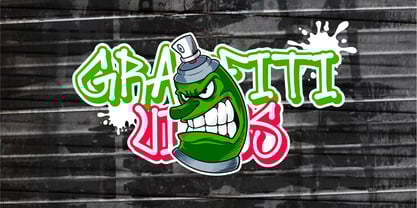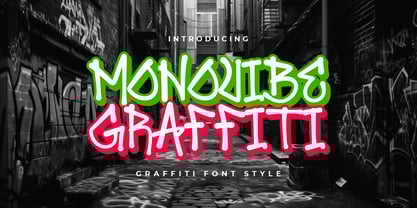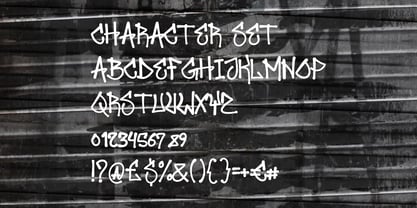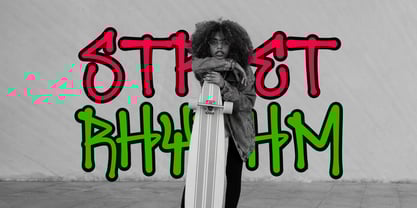
Monovibe Graffiti
by Shanaf
The Monovibe Graffiti Font Family was designed by Yesie Erma Yunita and published by Shanaf. Monovibe Graffiti contains 3 styles and family package options. More about this family
Dive into the pulse of the streets with Monovibe Graffiti, a bold monoline graffiti font that captures the energy, edge, and rebellion of urban culture. Designed with authentic street art flair, Monovibe features hand-drawn letterforms that blend smooth curves and sharp tags, creating a raw and expressive personality. Each glyph is crafted with an outline-style structure, resembling spray-paint strokes with consistent monoline width, giving it a playful yet daring attitude. Vibrant color combinations and contrasting drop shadows make this font pop against both gritty backgrounds and modern compositions. It comes with uppercase, lowercase, numerals, and punctuations—giving designers full control over diverse typographic needs.
Monovibe Graffiti is a powerful visual asset for creators who want to project energy, freedom, and youthful creativity. Ideal for streetwear branding, music event posters, sticker packs, YouTube thumbnails, urban apparel, skate culture promotions, and underground art zines. Whether you’re working on hip-hop visuals, graffiti-inspired packaging, or rebellious editorial layouts, this font makes your message impossible to ignore. Let your design vibe with the streets—express loud, raw, and unapologetically bold with Monovibe Graffiti.
Designers: Yesie Erma Yunita
Foundry: Shanaf